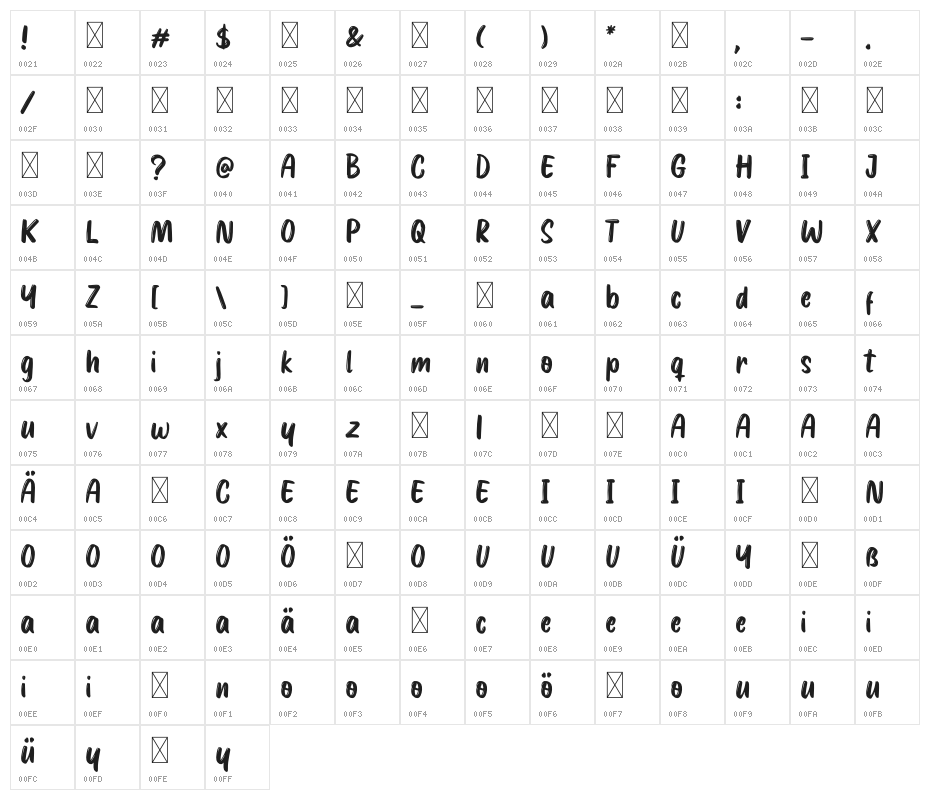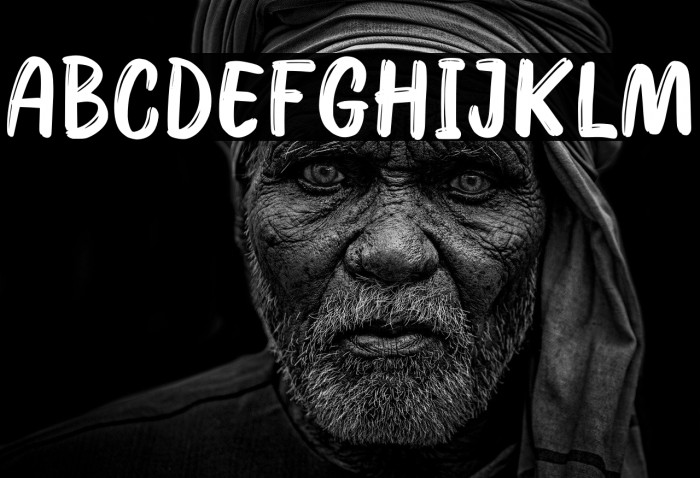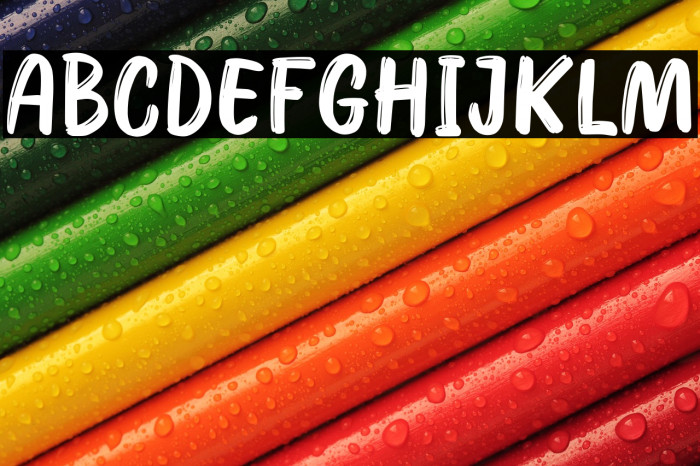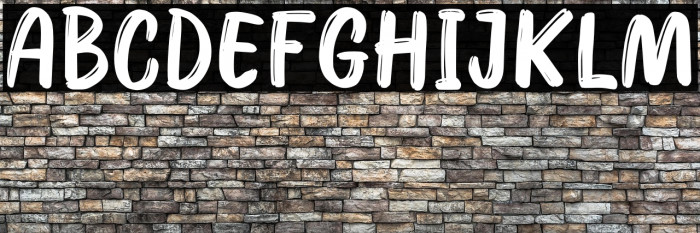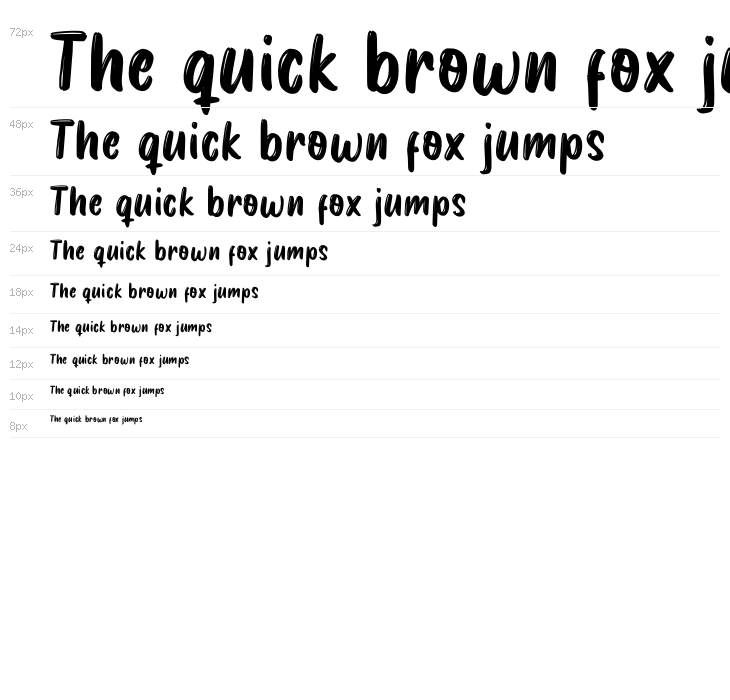
Mocha Cookies Font
Mocha Cookies Description
This font features a bold, handwritten style with a playful and energetic feel. The letters are slightly slanted, giving it a casual and informal appearance. The strokes are thick and consistent, providing a strong presence on the page. The uppercase and lowercase letters are well-balanced, maintaining readability while adding a touch of personality. The font includes a variety of special characters, enhancing its versatility for different design needs. Its overall look is modern yet approachable, making it suitable for a range of creative projects.
| Proposed Projects | Ideal for branding, social media graphics, posters, and invitations. |